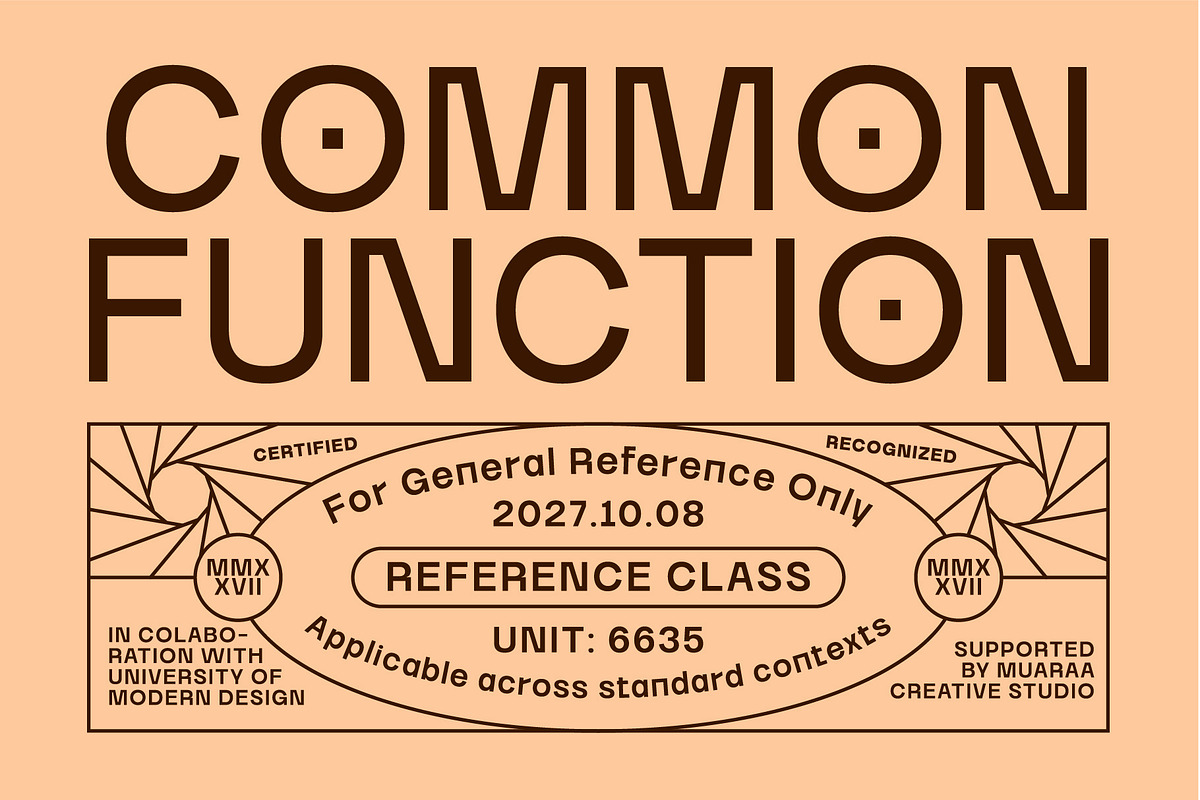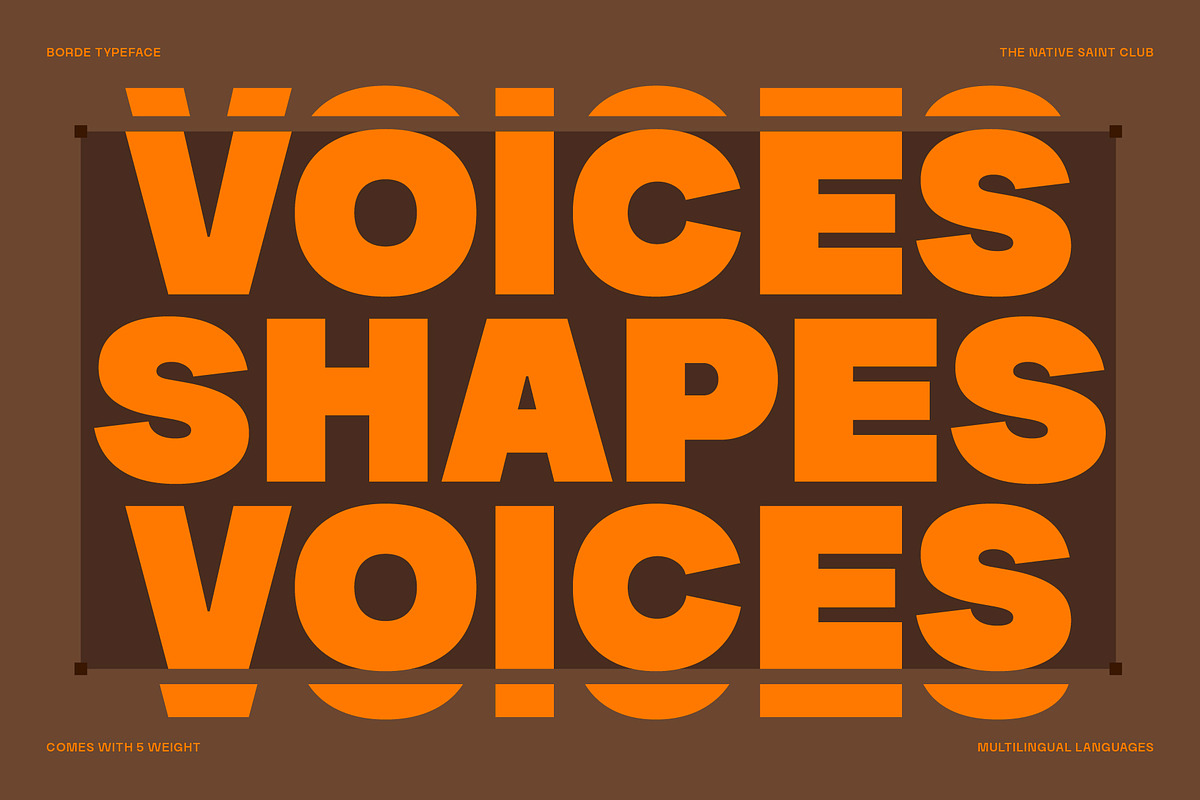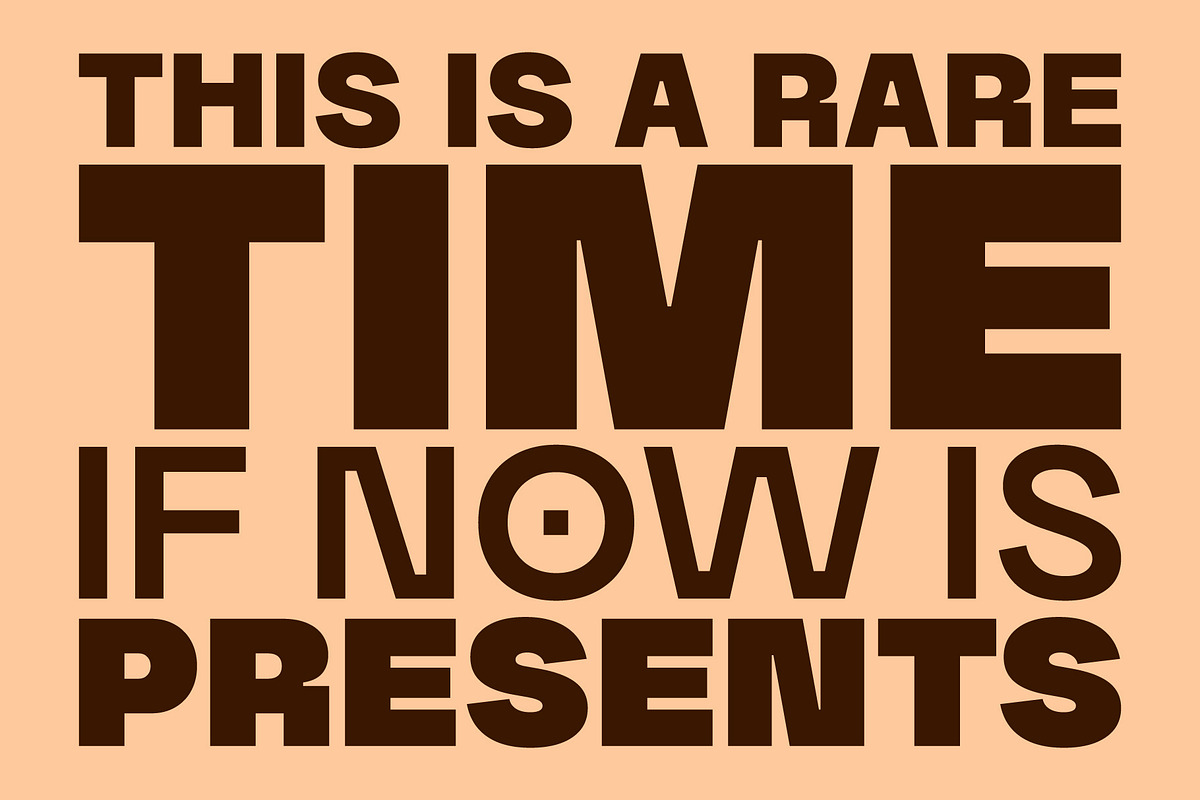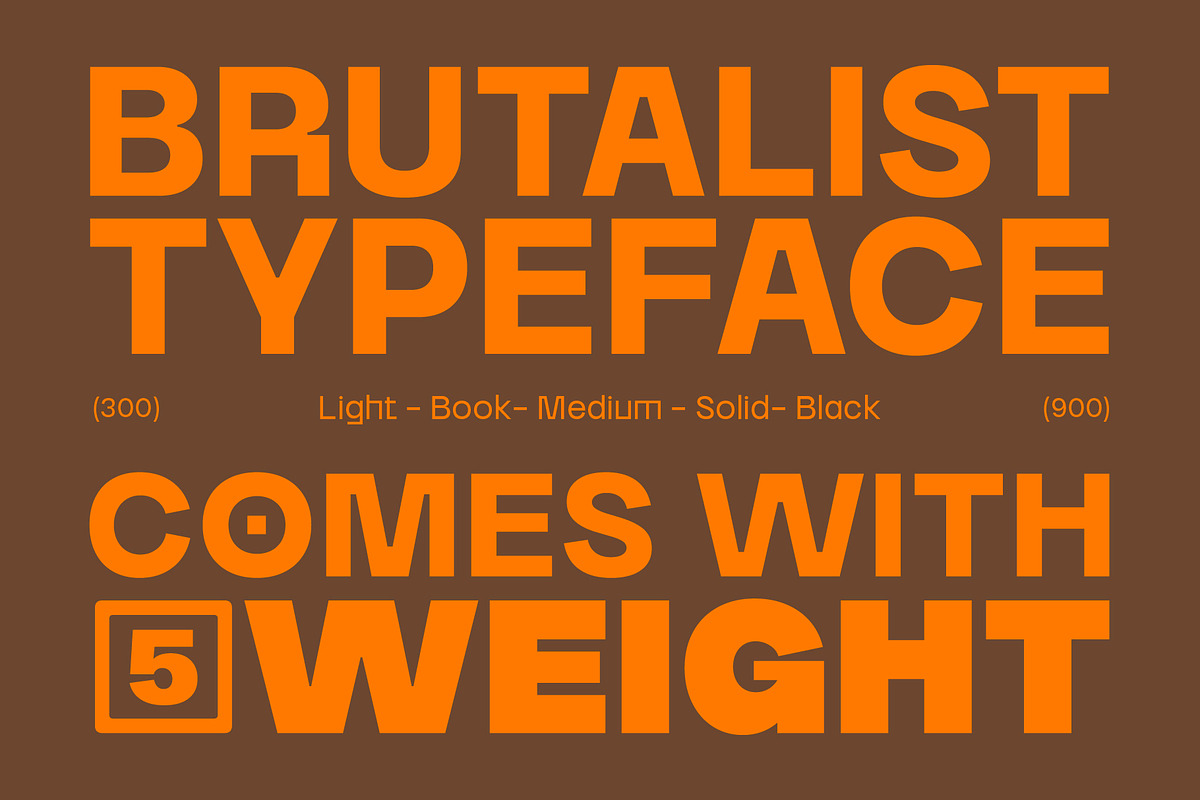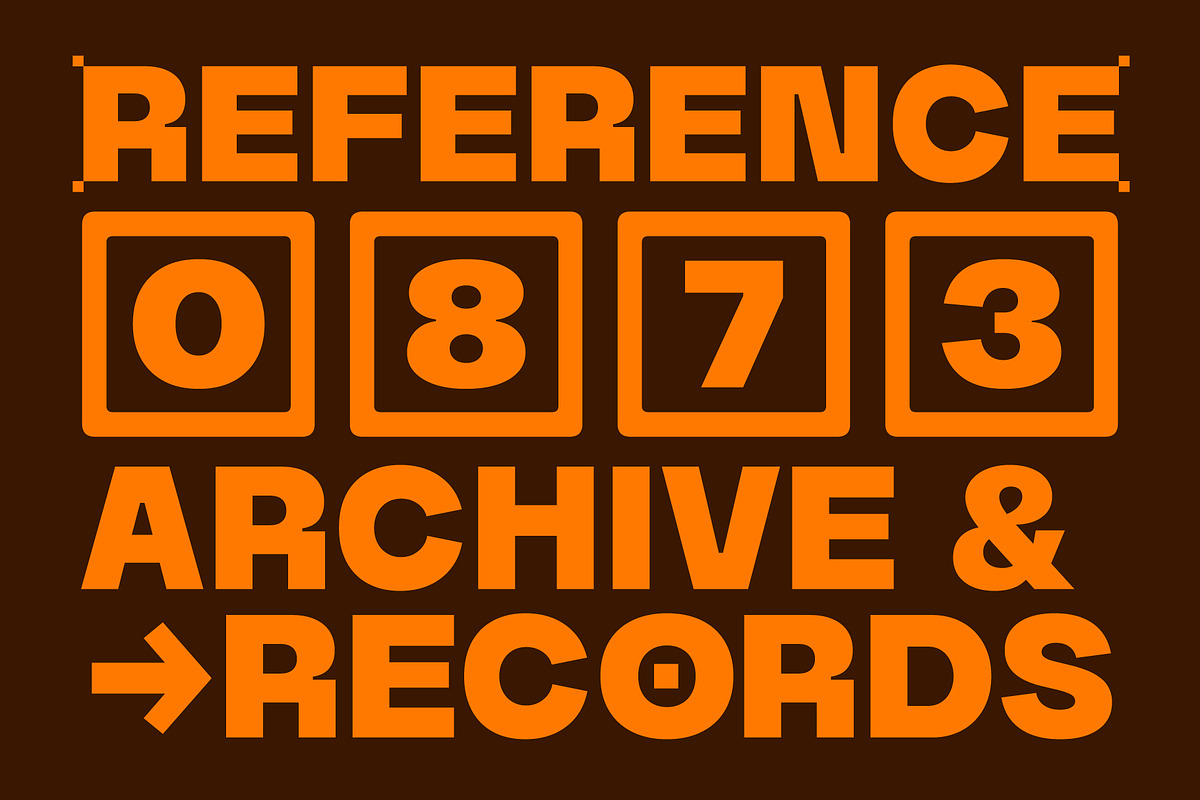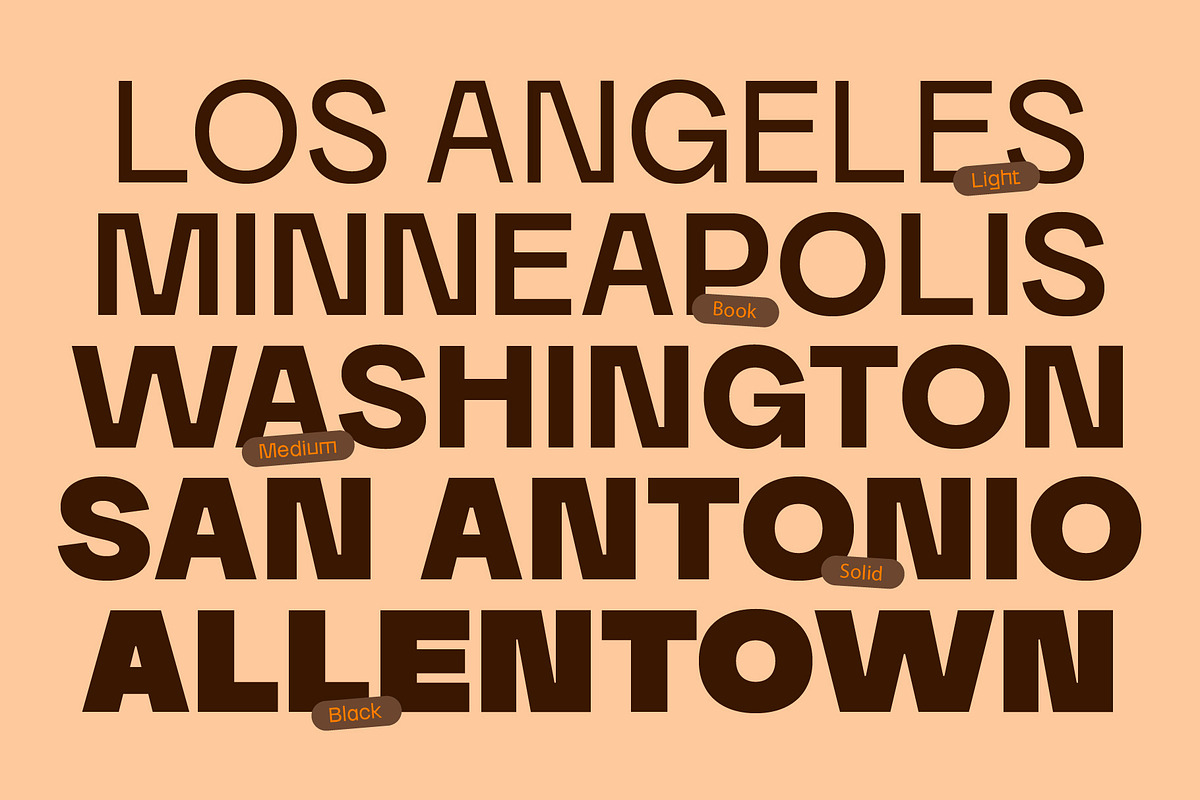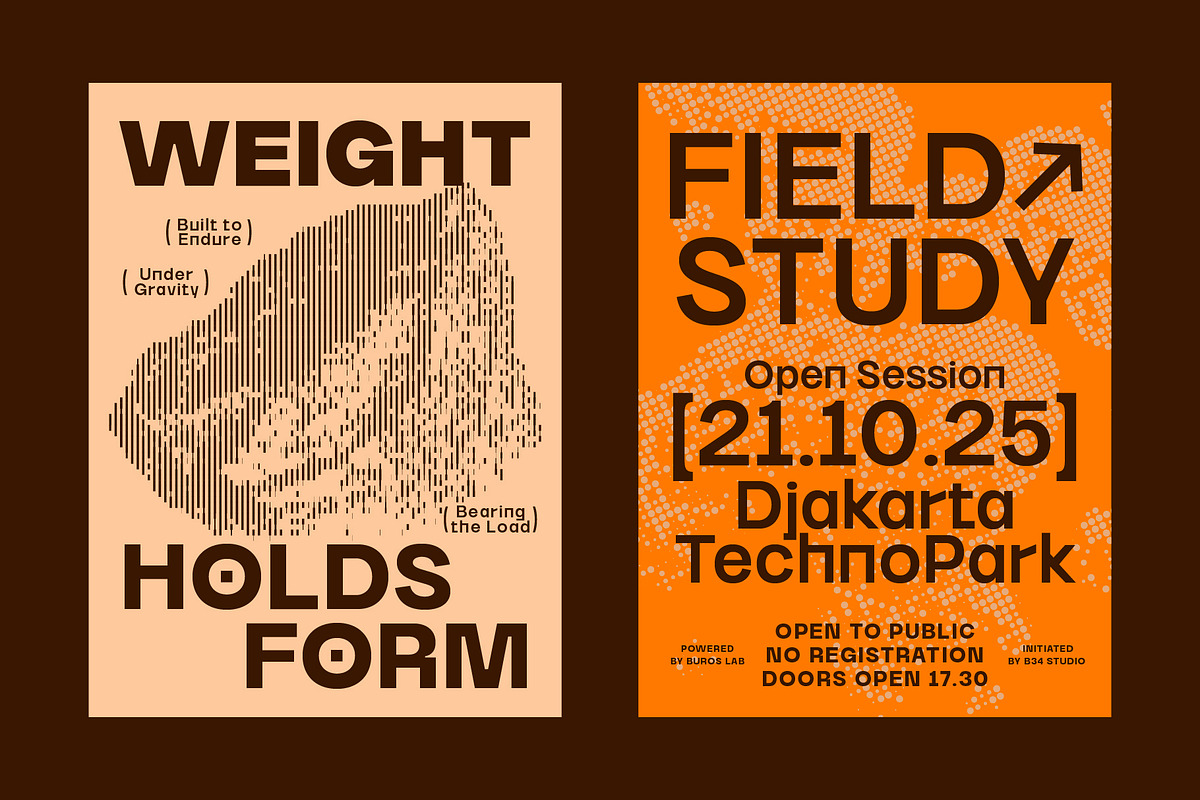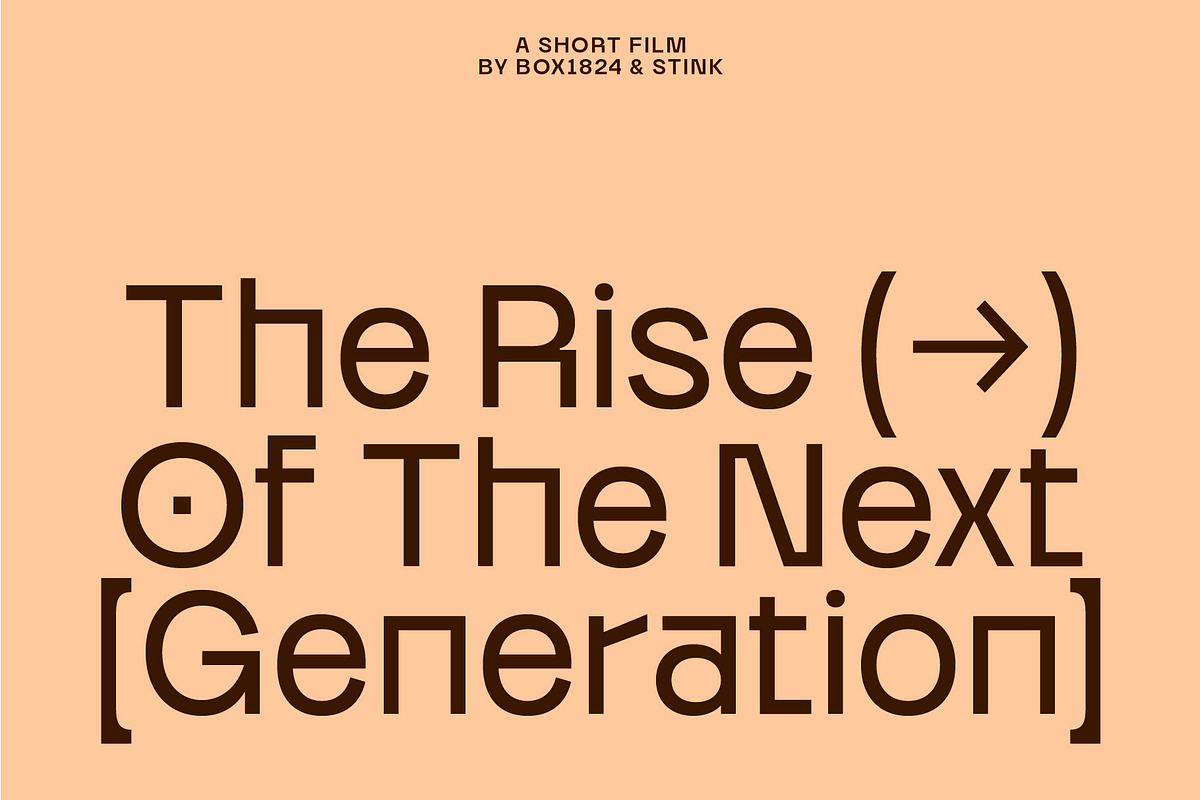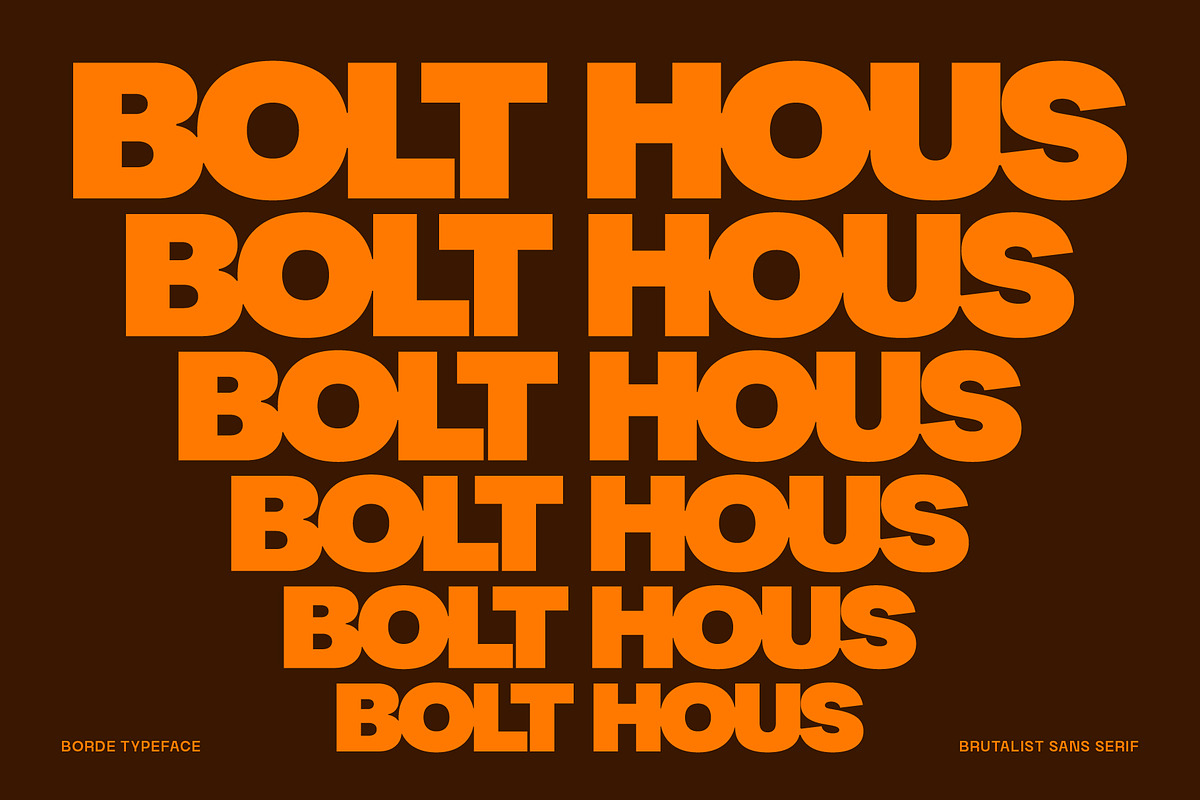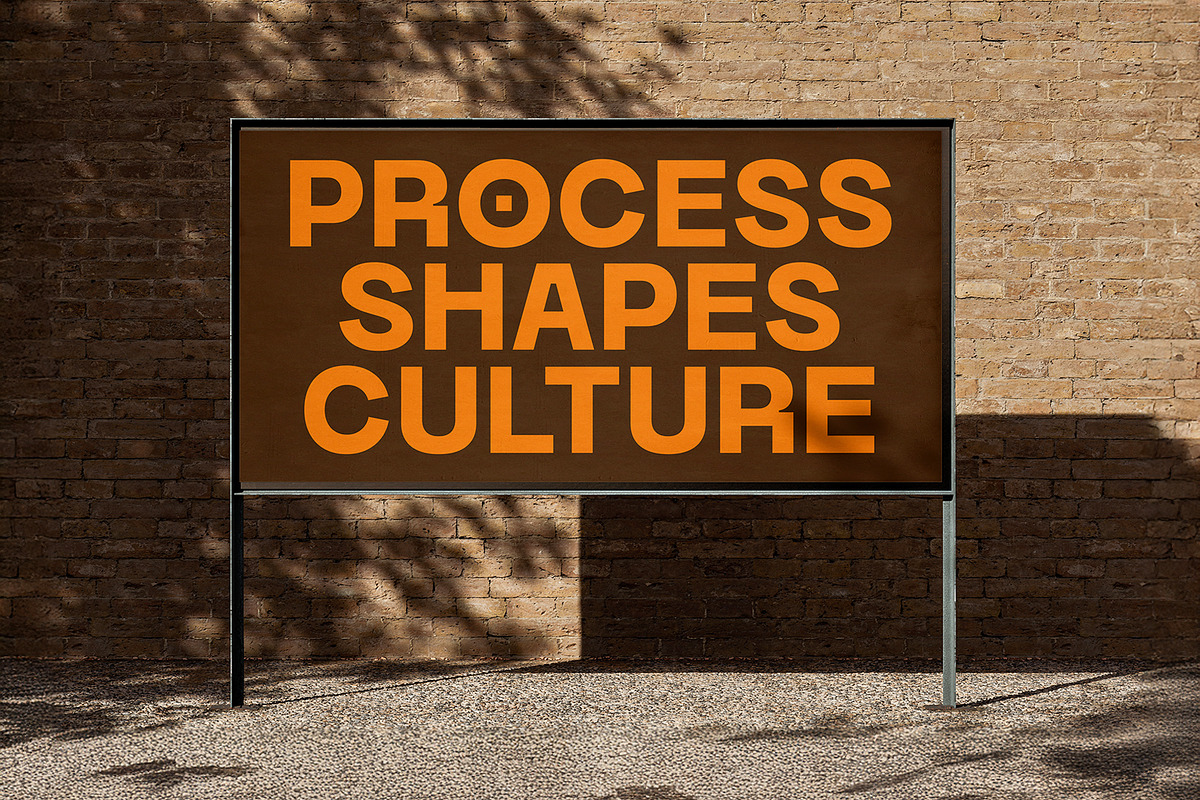
Borde - Brutalist Sans
TNSC Borde is a bold brutalist sans serif typeface built to make an immediate impact. Inspired by raw architectural forms, it features strong geometric shapes, high legibility, and a confident modern tone.
Perfect for headlines, branding, posters, editorial layouts, packaging, and digital design.
With 5 weights from Light to Black plus multilingual support, numbers, and punctuation, Borde offers the versatility you need to create clean, powerful, and contemporary visual work.